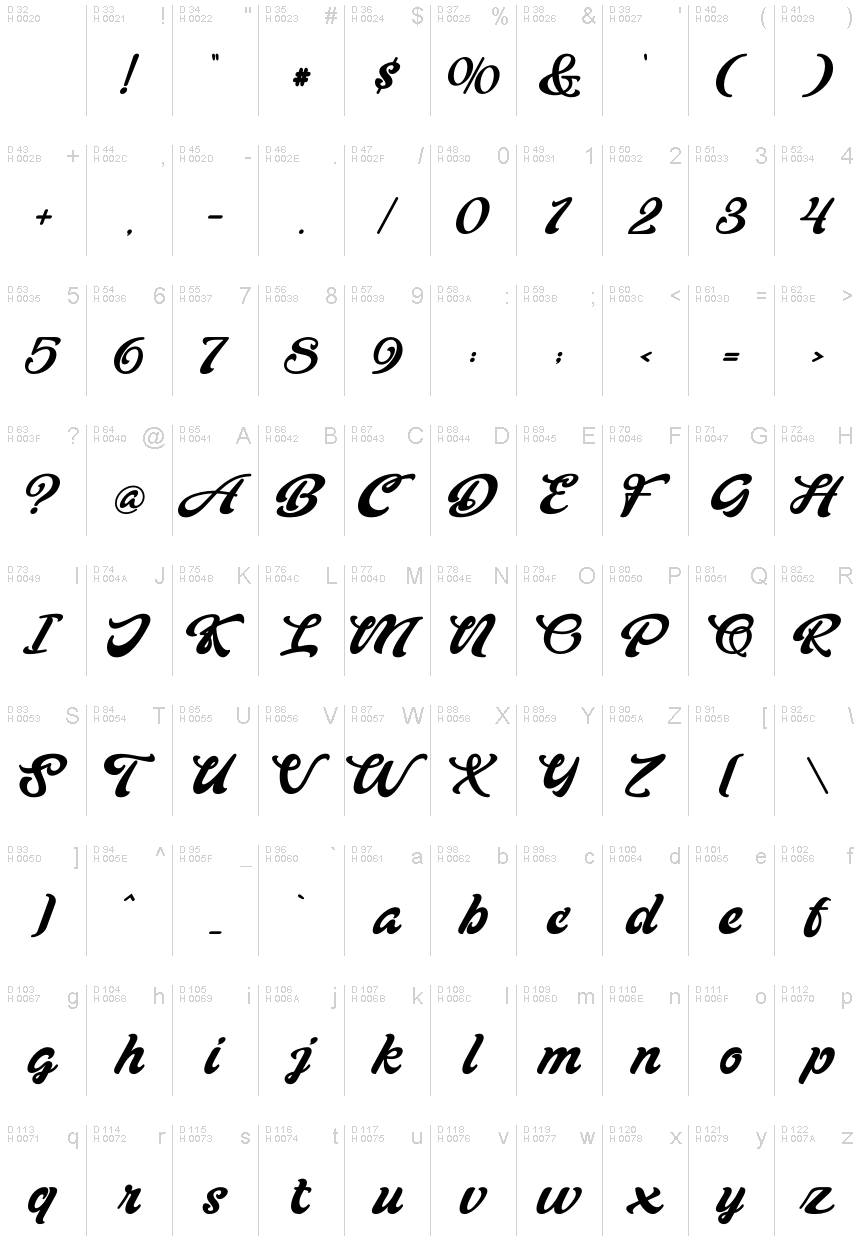
Blacker Script-Personal use
Blacker Script font, designed by Letterara is a flowing and elegant modern brush font featuring smooth curves and high contrast. It evokes a playful vintage-inspired mood with its connected letters. Versatile in bold strokes, Blacker Script brings a touch of sophistication to any design.
The perfect choice for social media posters, books or movie posters as well as wedding invitations and cards! Also suitable for logos, branding, labels or catchy editorials.